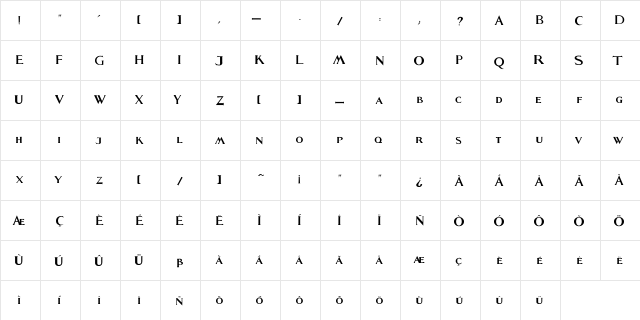
Fleet Street Regular
Design Context for Fleet Street Typeface
Fleet Street is a composed and adaptable typeface that performs quietly and consistently across a wide range of design contexts.